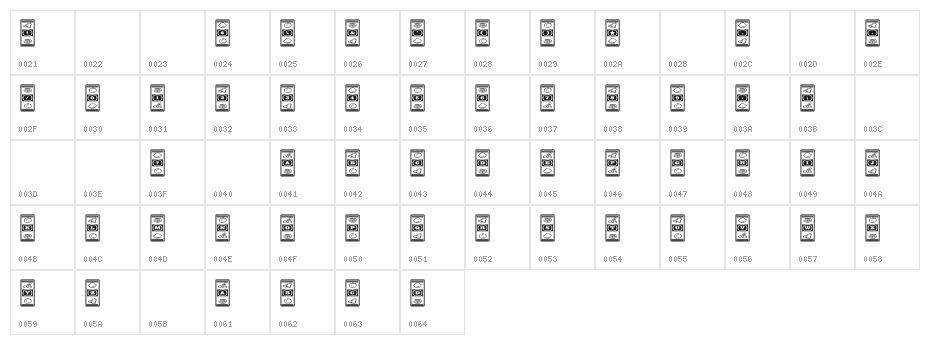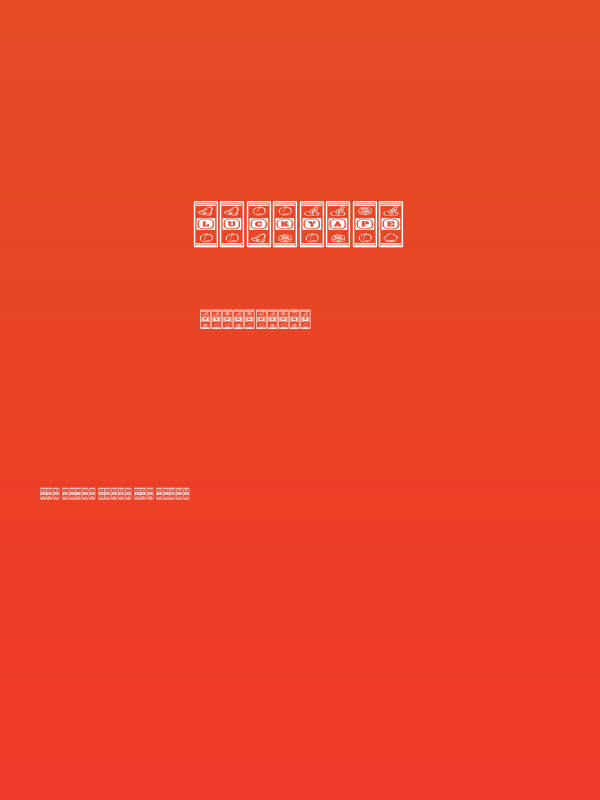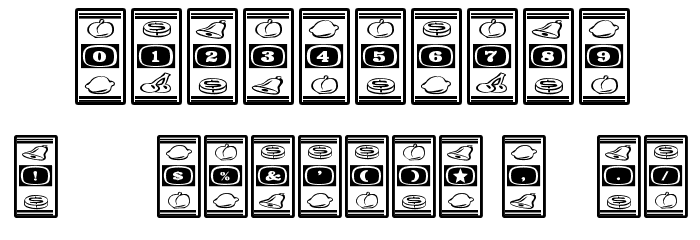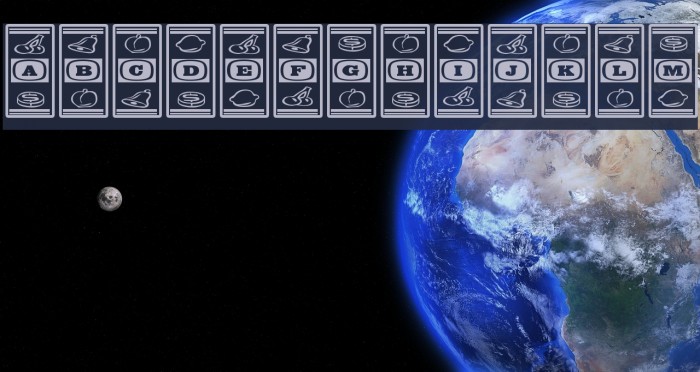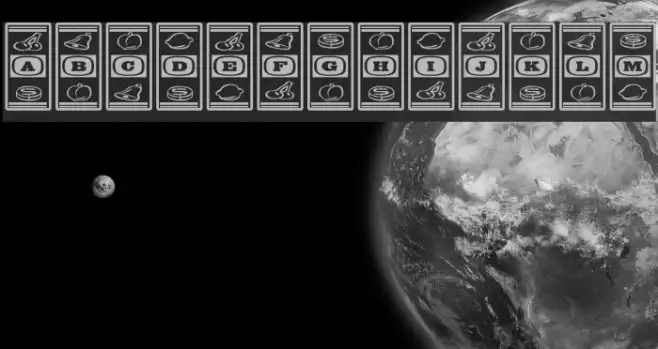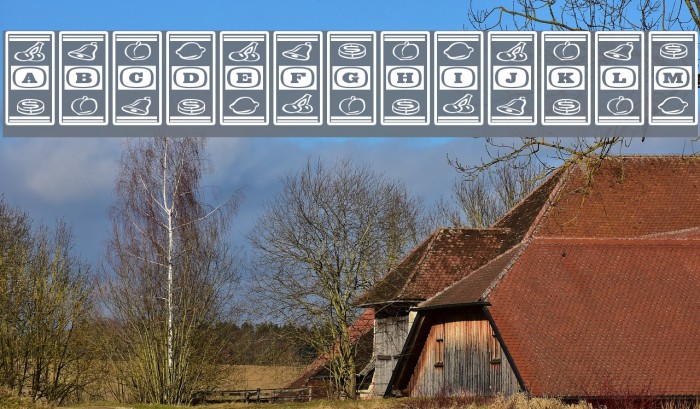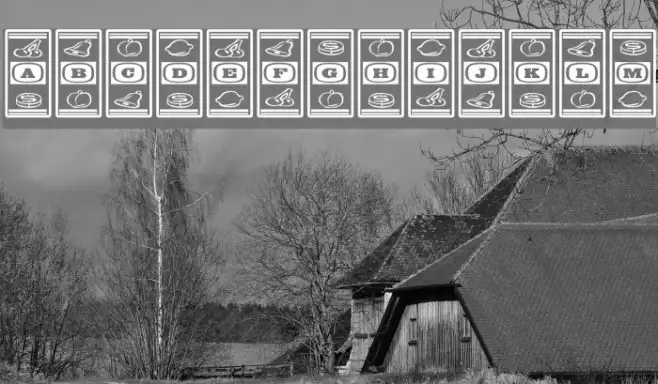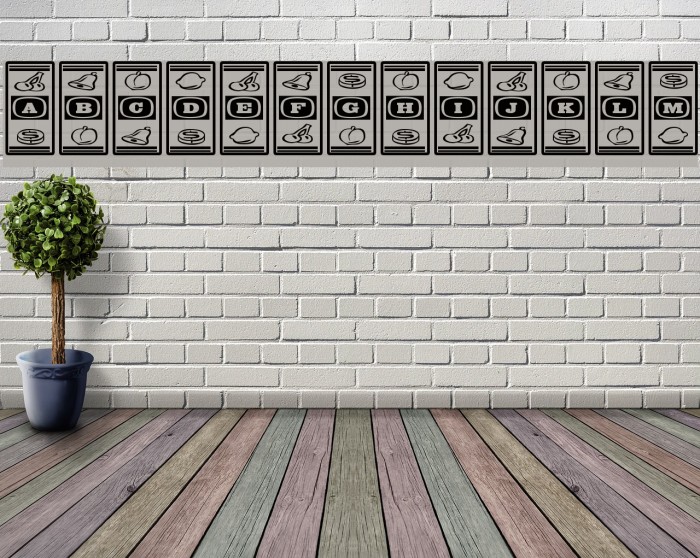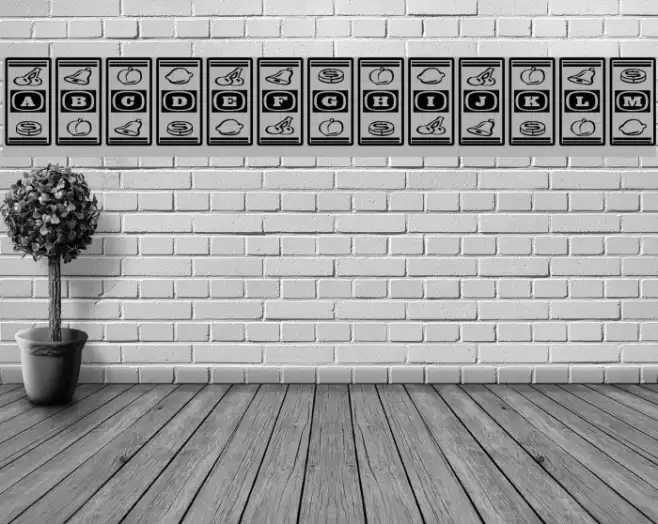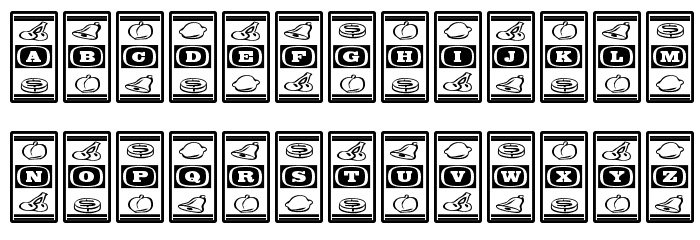
LuckyApe Font
LuckyApe Description
This font is a playful and decorative typeface that incorporates elements of classic slot machine symbols, such as cherries, lemons, and bells, into its design. Each character is encased in a rectangular frame, giving it a distinctive and bold appearance. The letters and numbers are bold and rounded, with a strong presence that makes them stand out. The use of iconic slot machine imagery adds a whimsical and nostalgic touch, making it ideal for projects that aim to evoke a sense of fun and excitement. The font's unique style is perfect for themed designs, especially those related to gaming, entertainment, or retro aesthetics.
| Use Case | Logos, Posters, Themed Events |
| Proposed Projects | Ideal for casino-themed designs, retro posters, game titles, and playful branding. |